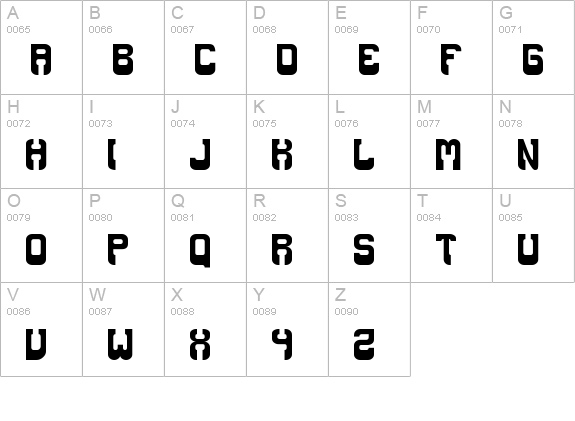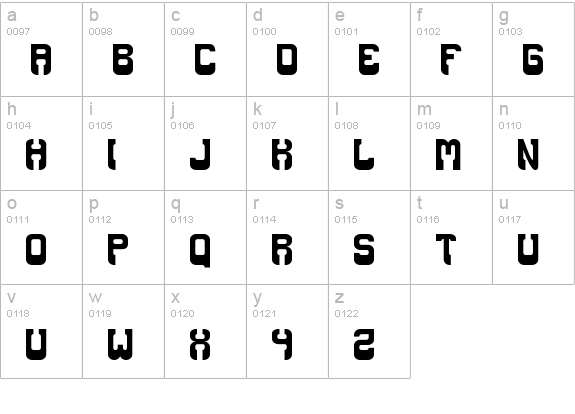
Introducing Booze font - a stylish and versatile typeface that is perfect for adding a touch of sophistication to your designs. With its sleek lines and modern aesthetic, Booze font is the ideal choice for a wide range of projects, from branding and logos to posters and invitations. What sets Booze font apart is not just its elegant design, but also the fact that it is completely free to download. That's right, you can access this stunning font at no cost from FontsMarket.com. Whether you're a graphic designer looking to elevate your work or a business owner in need of a fresh new look, Booze font is sure to make a statement. Download it today and start creating beautiful designs with ease.